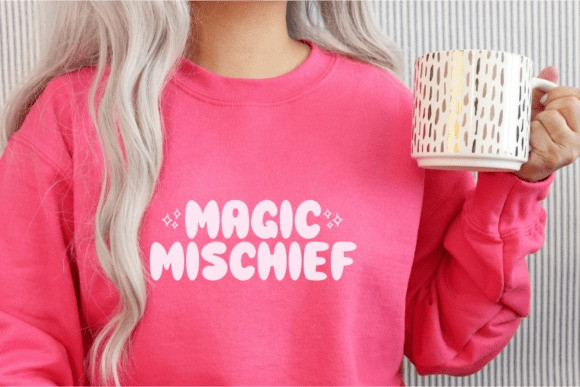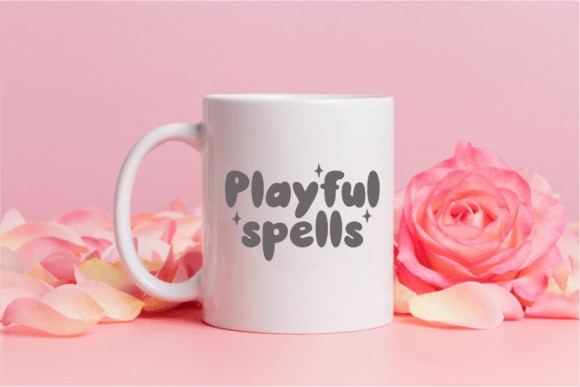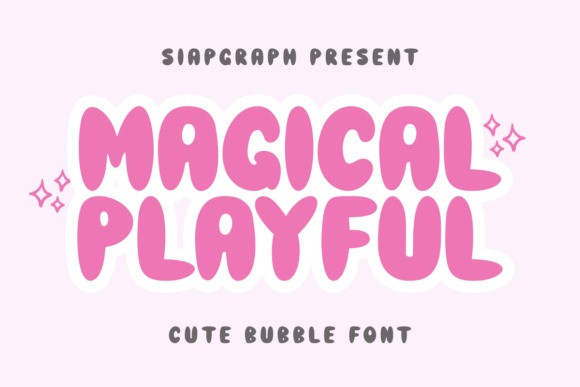
Magical Playful Font
Magical Playful Font a charming and whimsical bubble font that serves as the perfect typography element for your creative ideas. This delightful font enhances any t-shirt design, sublimation work, cricut tasks, silhouette projects and is an excellent embellishment for wall art. It lends a playful charm to logos, key chains and stickers while adding a cute touch to embroidery designs and stationery planners. When it comes to digital crafting, card design or craft branding, Magical Playful brings an element of fun. With its versatility, this font headlines on hoodies, adds a touch of joy to baby clothes and sparks creativity in DIY projects. Perfect for clip art designs and print-on-demand services, imbue your craft with the enchanting appeal of Magical Playful font!